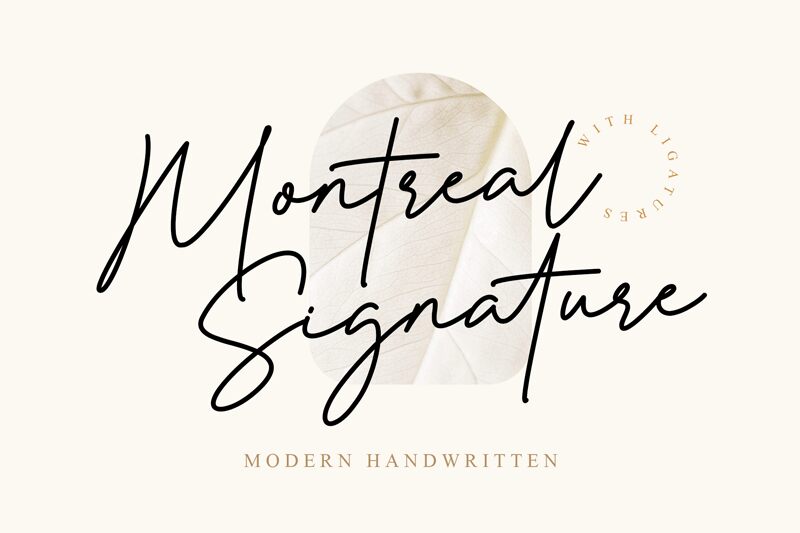
Montreal Signature Demo
Montreal Signature, a creation by MJB Letters, is a font that exudes elegance with its handwritten style and extra-light weight. Its delicate and flowing lines mimic the personal touch of an inked pen on paper, bringing an intimate and bespoke quality to any project it graces.
This font boasts a refined aesthetic that is both versatile and visually stunning, making it perfect for invitations, branding, or editorial designs where a touch of sophistication is desired. Embrace the charm of Montreal Signature to elevate your creative endeavors with its distinctively chic appeal.